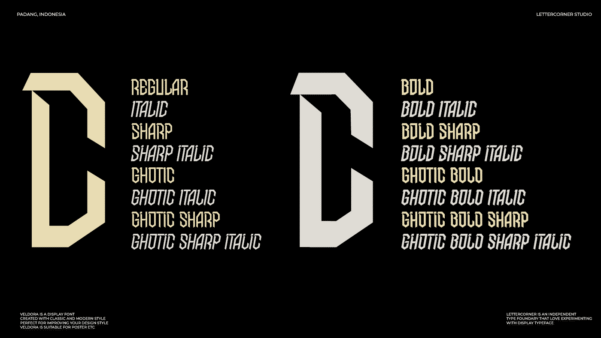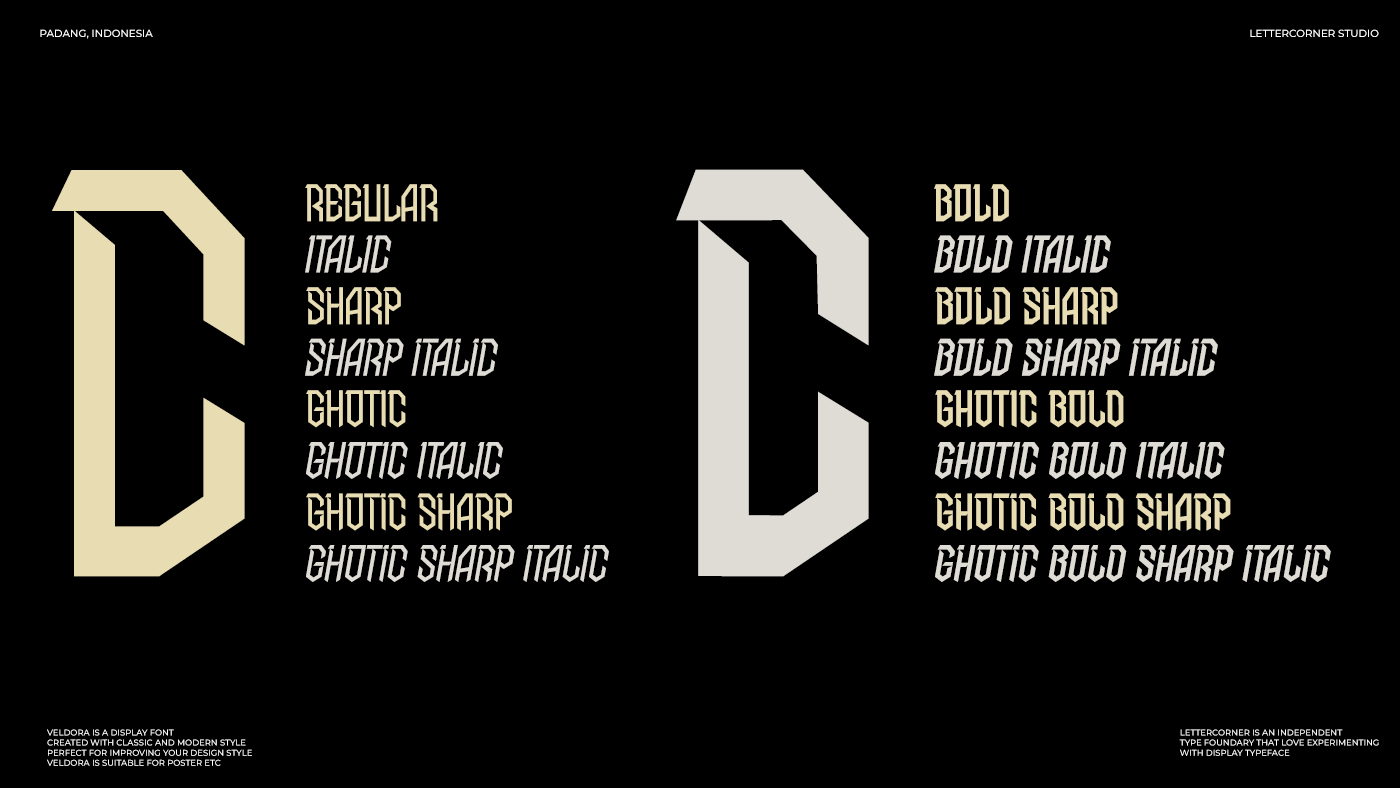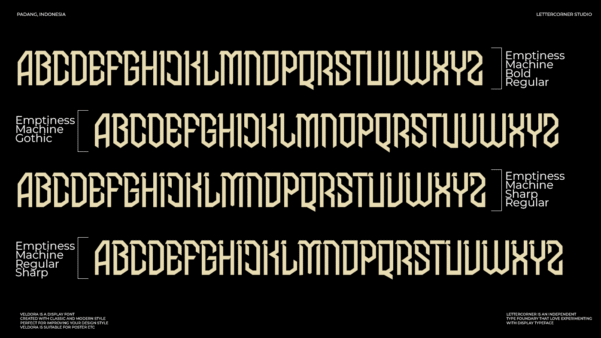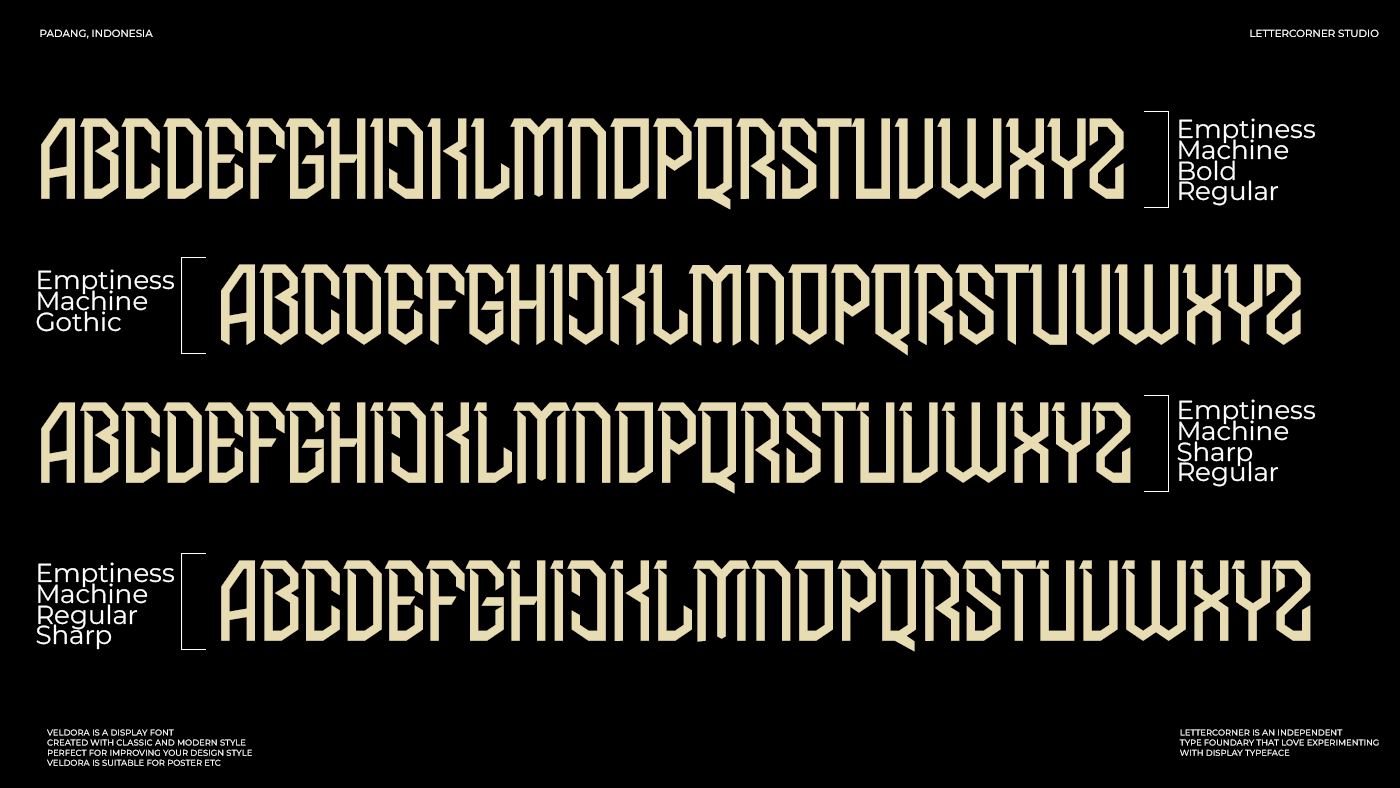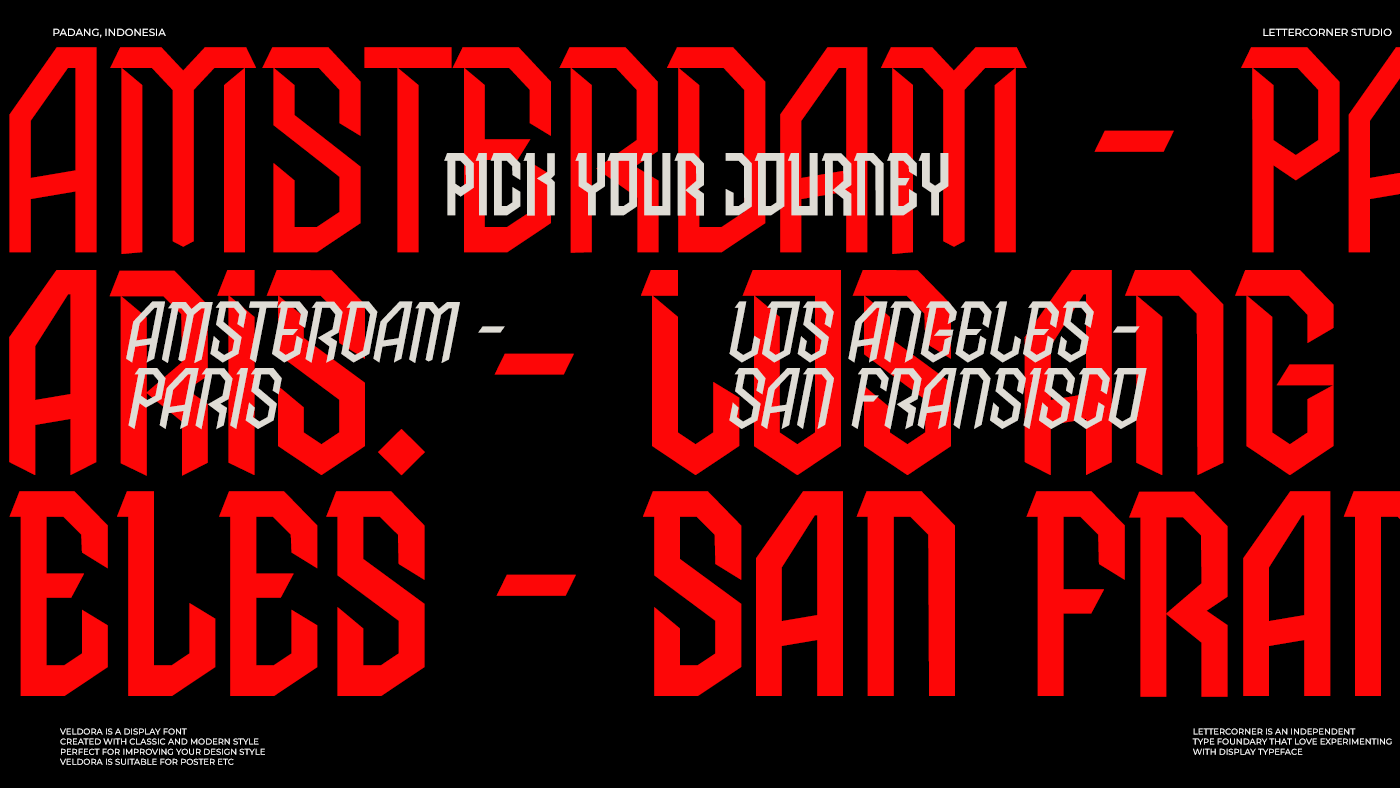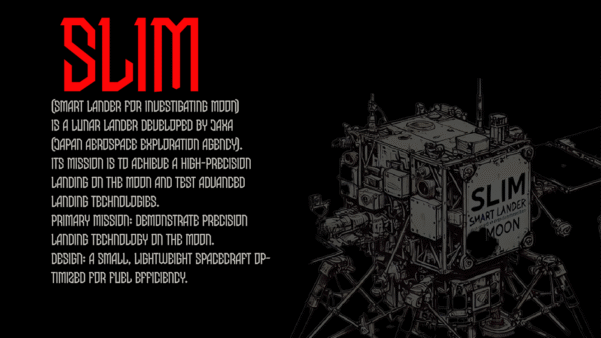
Emptiness Machine
Introducing “Emptiness Machine” – A Typeface Forged in Stillness and Precision.
Minimal. Futuristic. Mechanized — like a perfect loop of thought and void.
“Emptiness Machine” is a sleek and experimental display font born from the philosophy of balance between form and emptiness. Each letter is crafted with mechanical rhythm and geometric rigor, embodying the calm precision of a machine that moves without waste.
With its sharp edges, deliberate spacing, and contemplative design, “Emptiness Machine” is ideal for projects that embrace minimalism, futurism, and conceptual depth. It’s more than a typeface — it’s a visual meditation.
Perfect for avant-garde branding, digital art, music covers, experimental editorials, posters, websites, or any design seeking a bold, philosophical edge. Let your message resonate in the space between letters.
Enter the machine. Embrace the void.